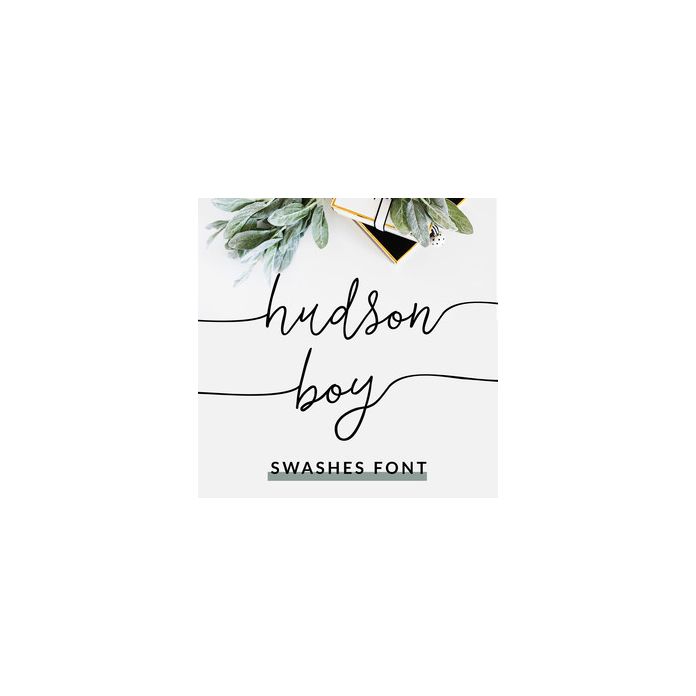
Meet Hudson Boy Swashes, a Cute lowercase font with delicate swashes that seamlessly connect to the beginnings and ends of lowercase letterforms. Choose from the 5 Swash styles included. Simply type A-B for the first swashes set then C-D, E-F, G-H, I-J accordingly. So easy to insert these swashes on your text!